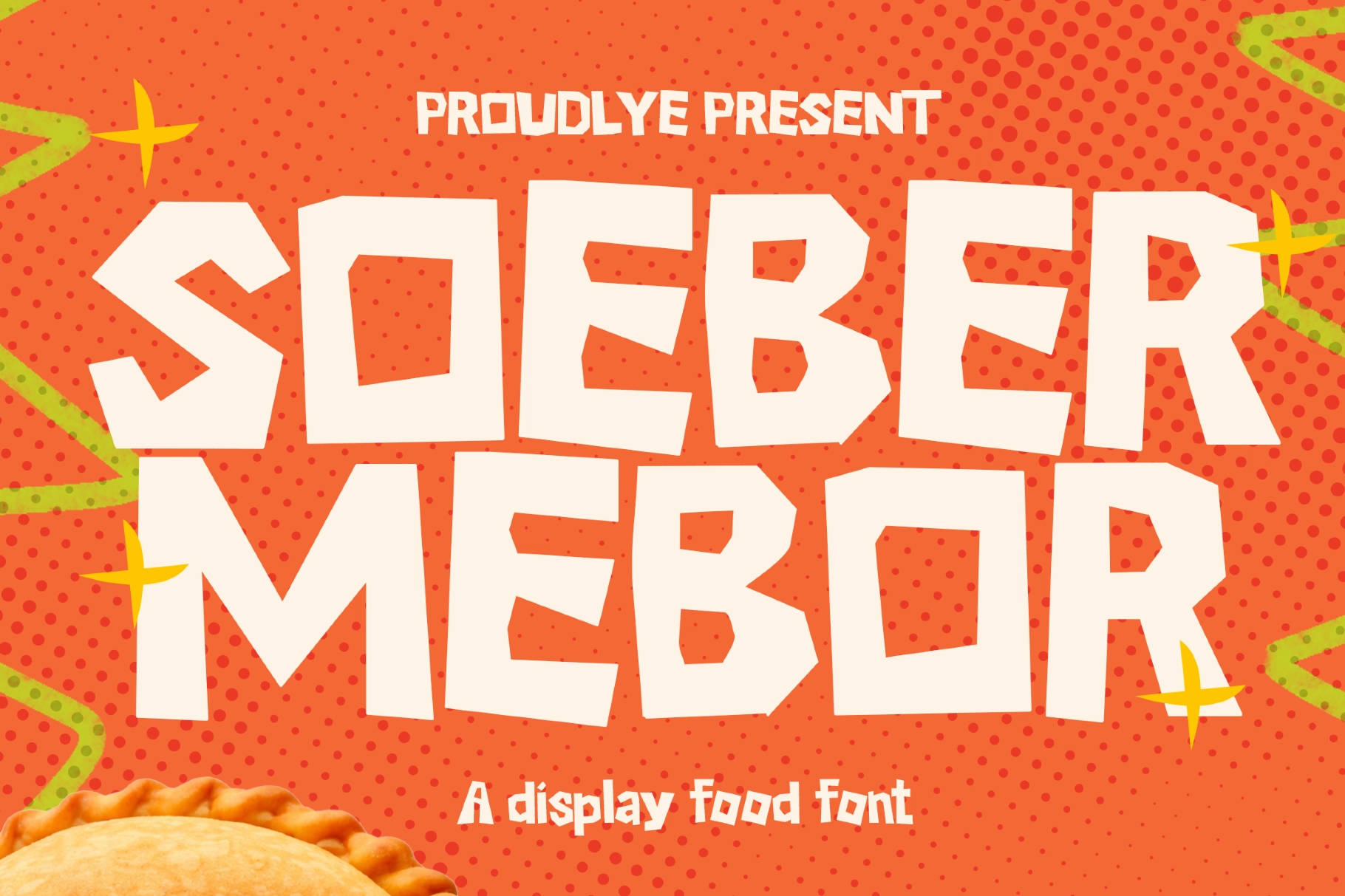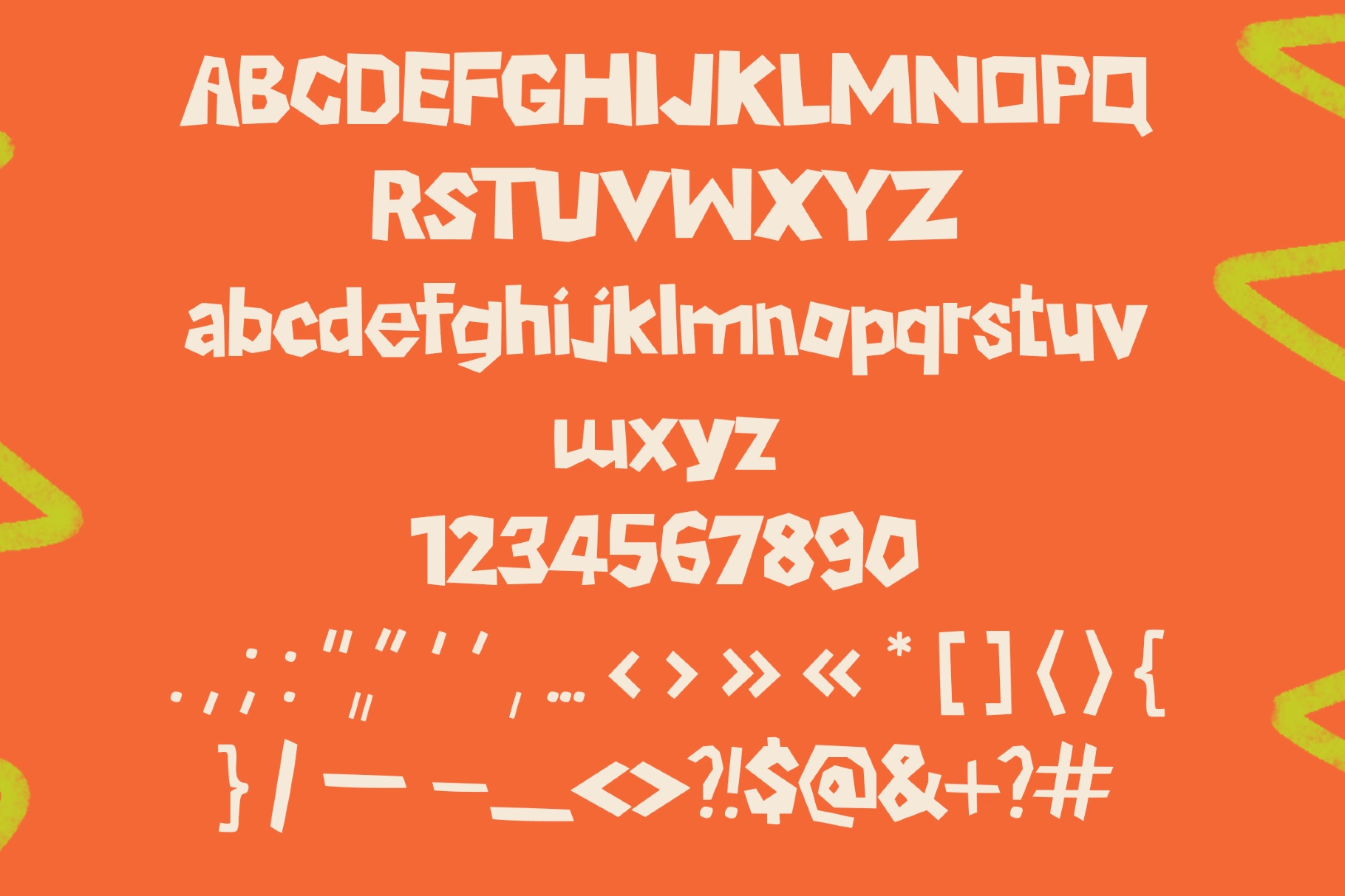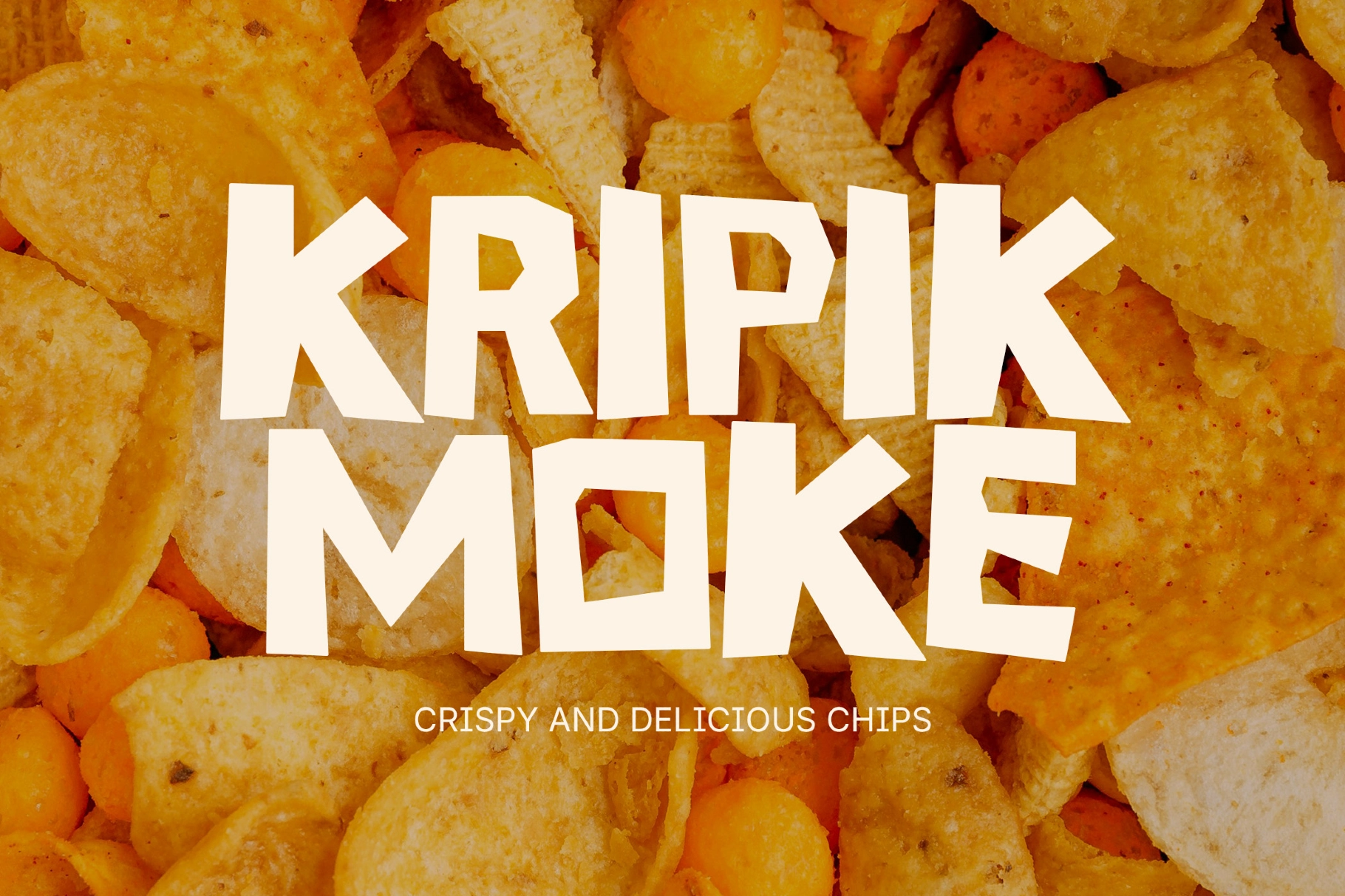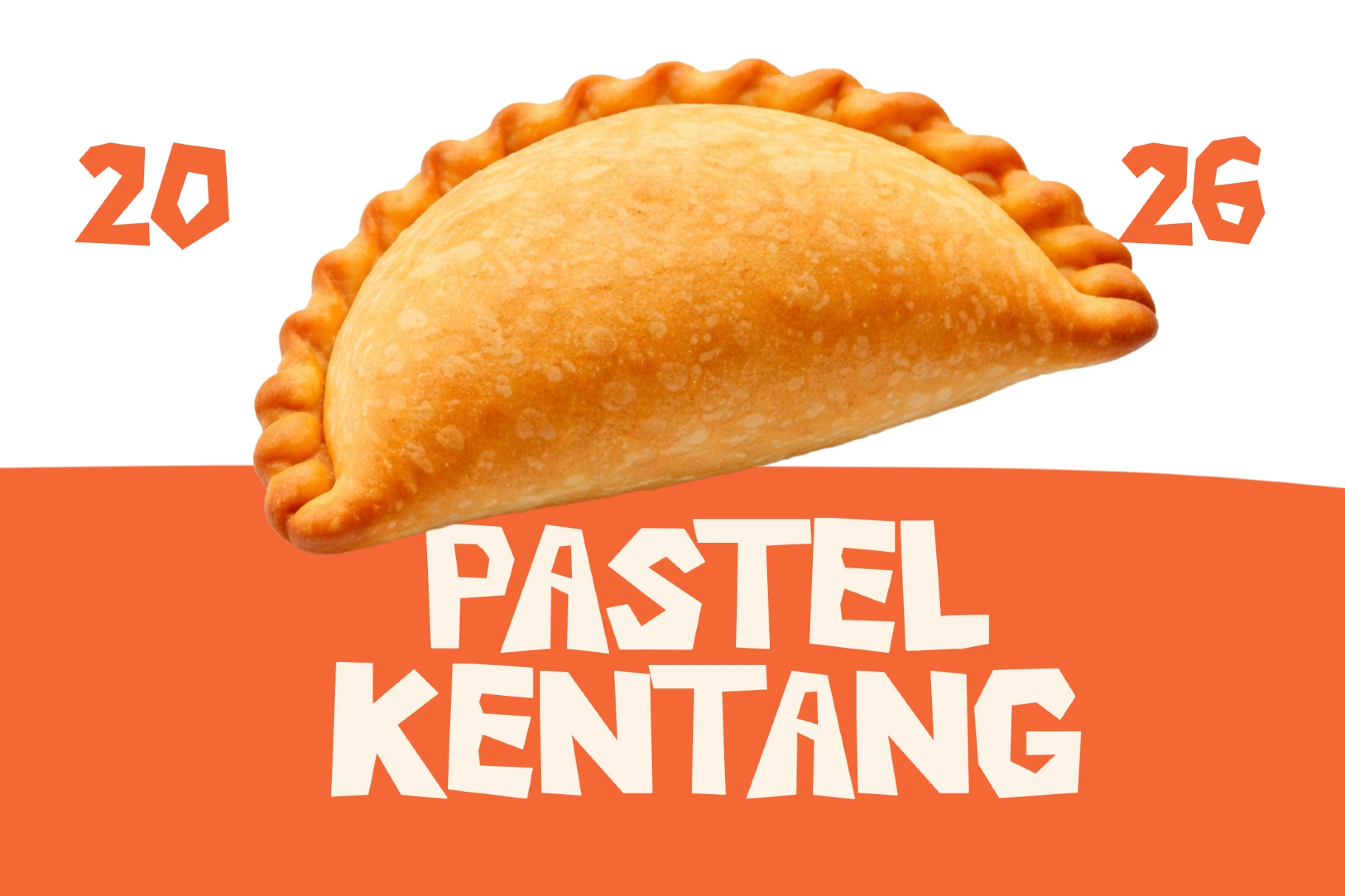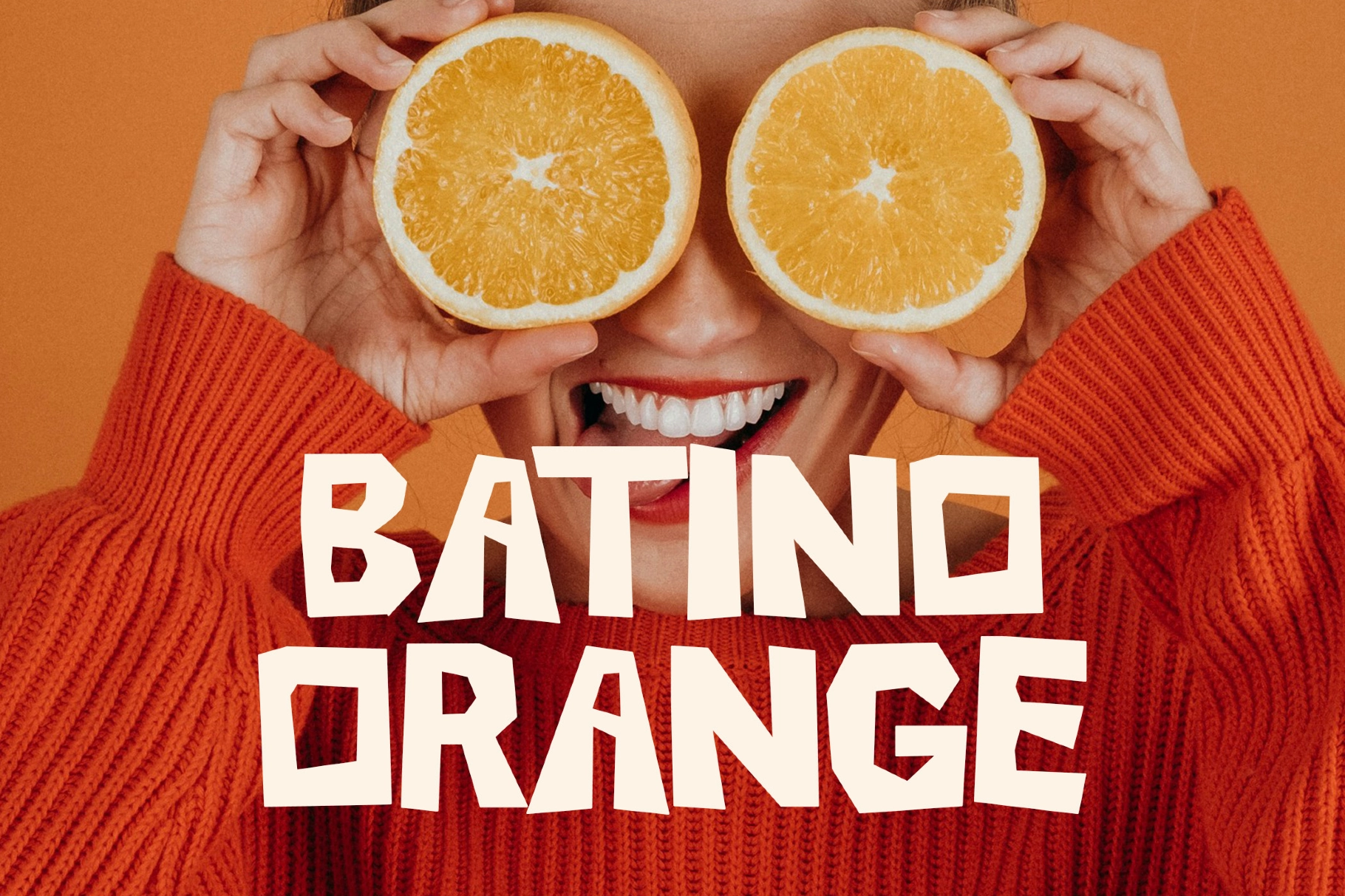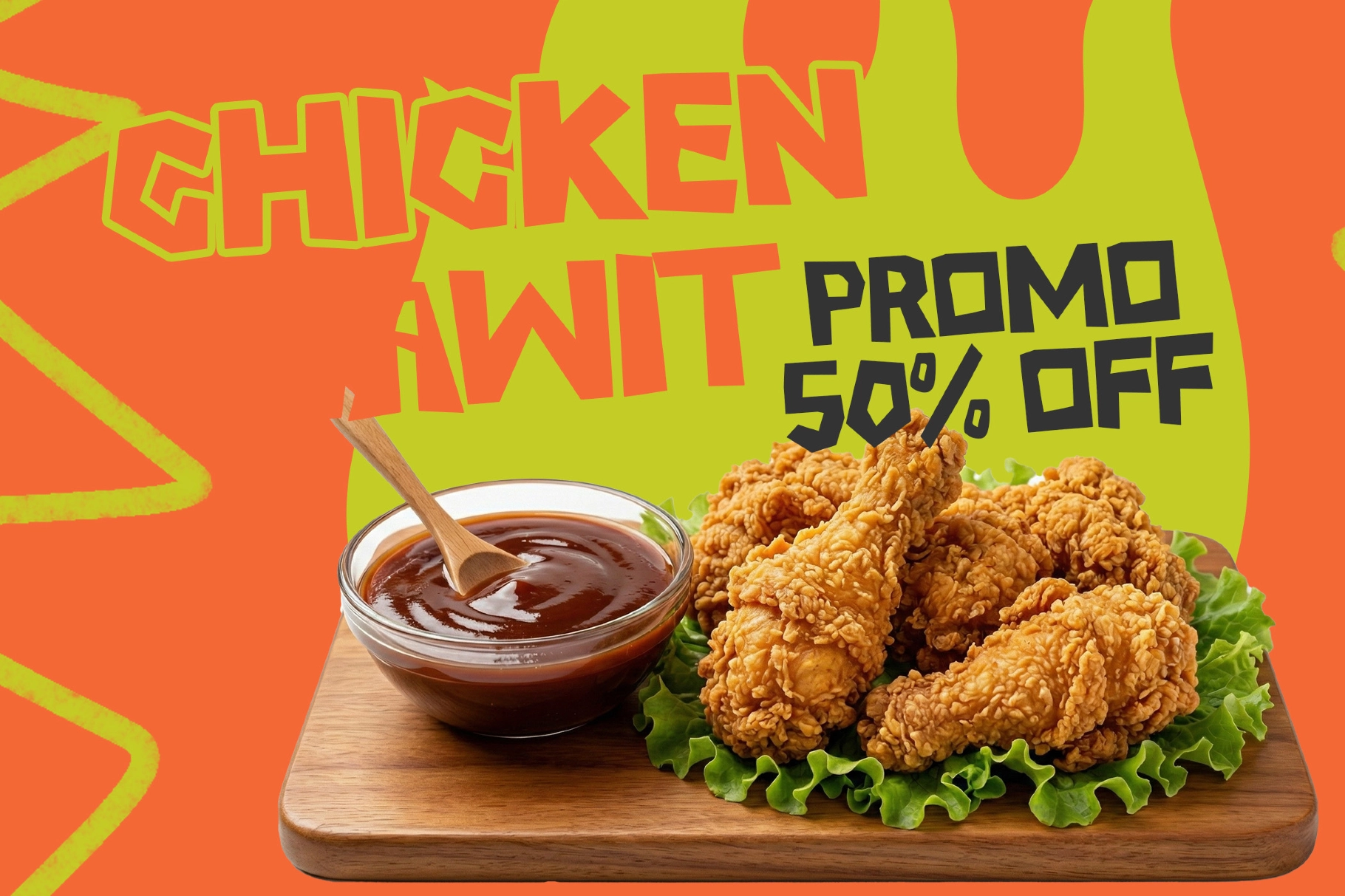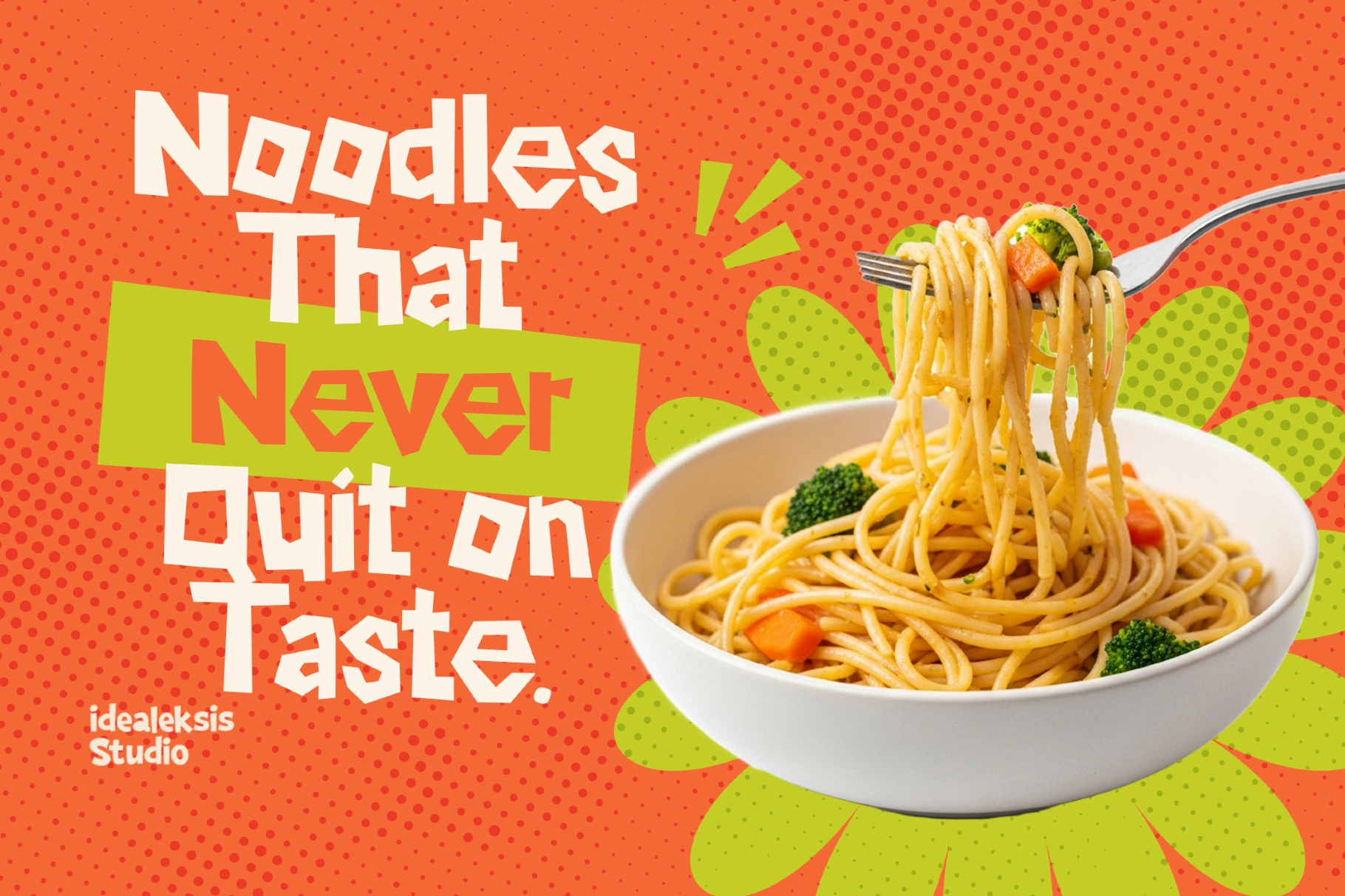
Soeber Mebor - Food Display Font
Soeber Mebor
This playful display font is bold, chunky, and cut with lively uneven angles. Its blocky shapes, jagged terminals, and handmade rhythm give food branding a loud, snack-aisle personality — the good kind of loud.
Use Soeber Mebor for food packaging, café menus, snack labels, restaurant posters, delivery promos, kids’ meal branding, social media ads, farmers market signs, beverage graphics, festival booths, recipe zines, and bright campaign headlines.